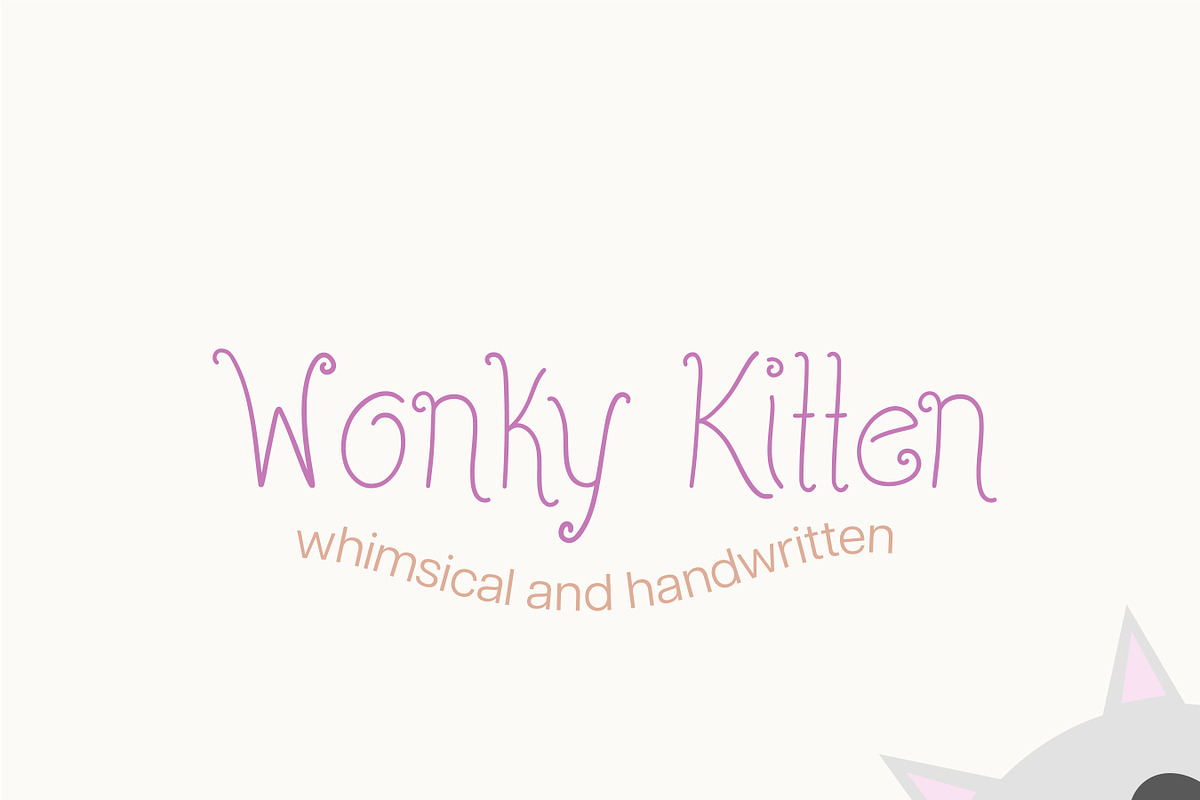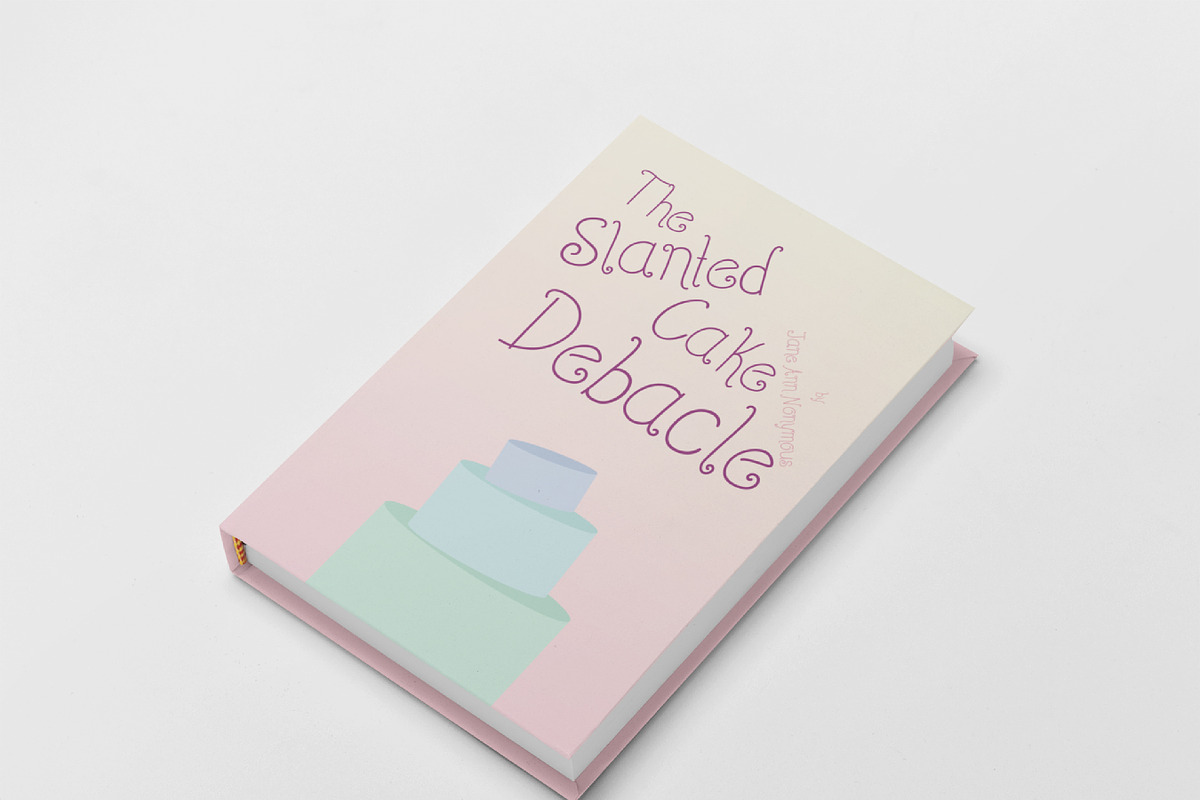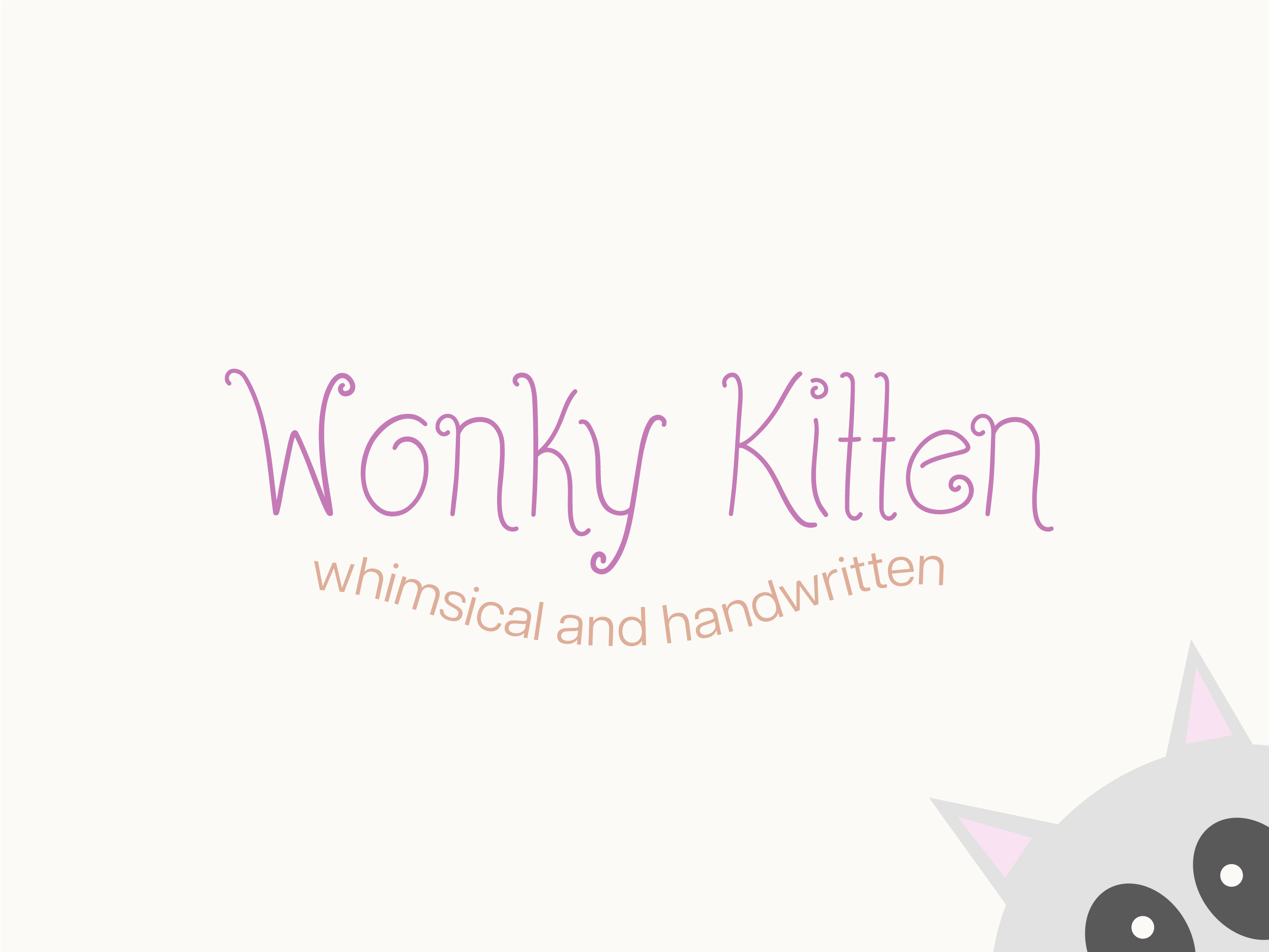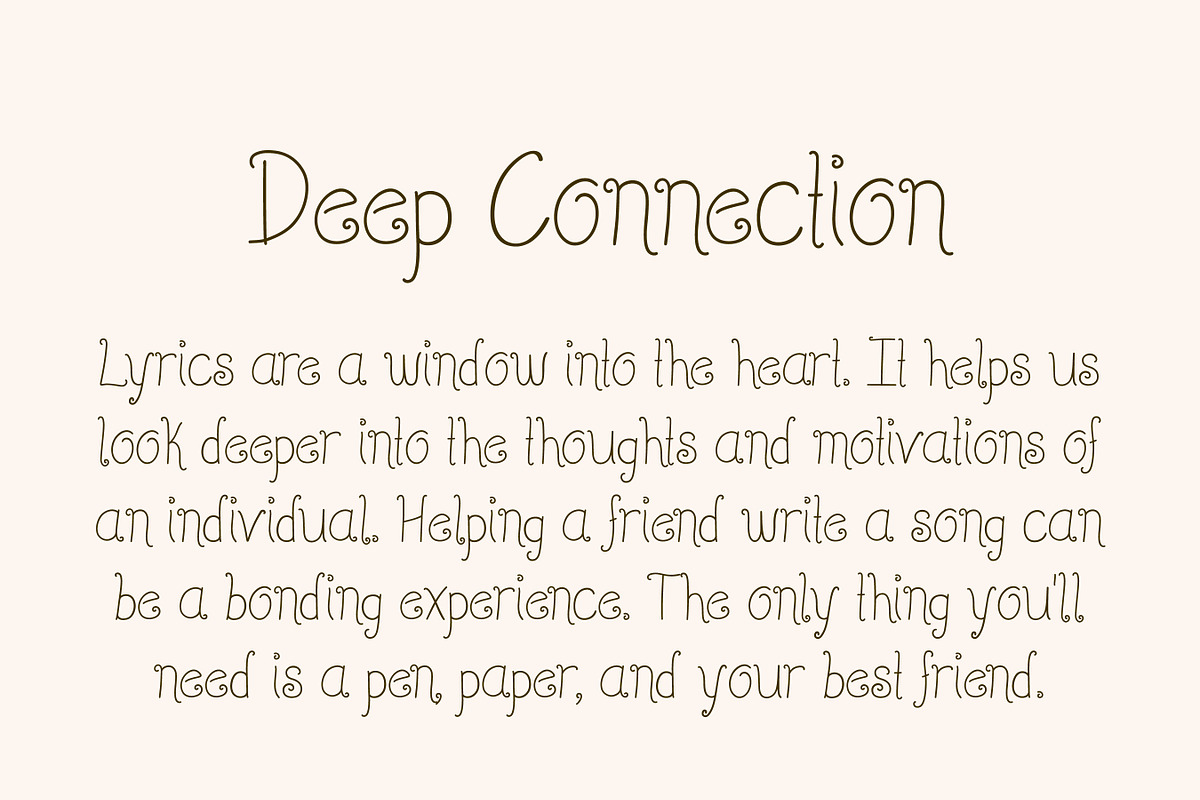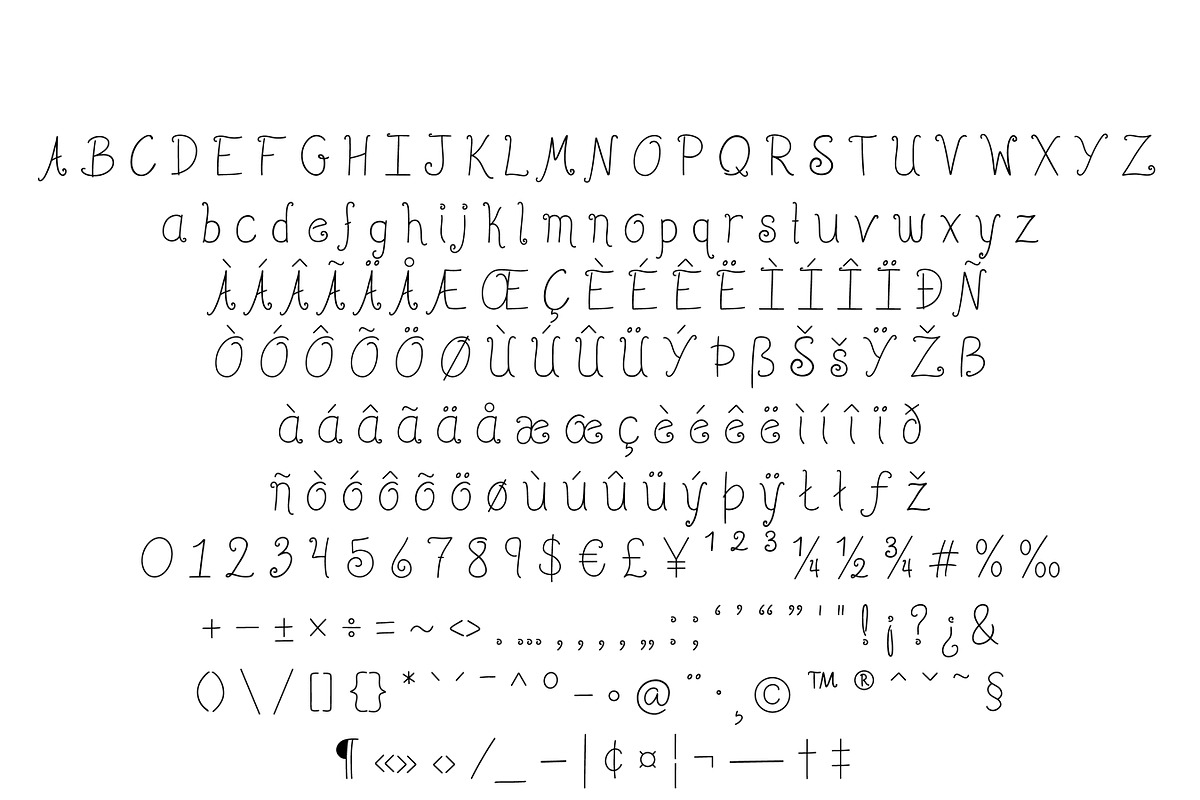
Wonky Kitten Font
Here we have a loopy and whimsical font called Wonky Kitten. Its crazy and unstructured form gives this font a quirky personality while maintaining an air of innocence. It’s perfect to use in book titles, children’s and teen branding, as well as posters, flyers and banners.